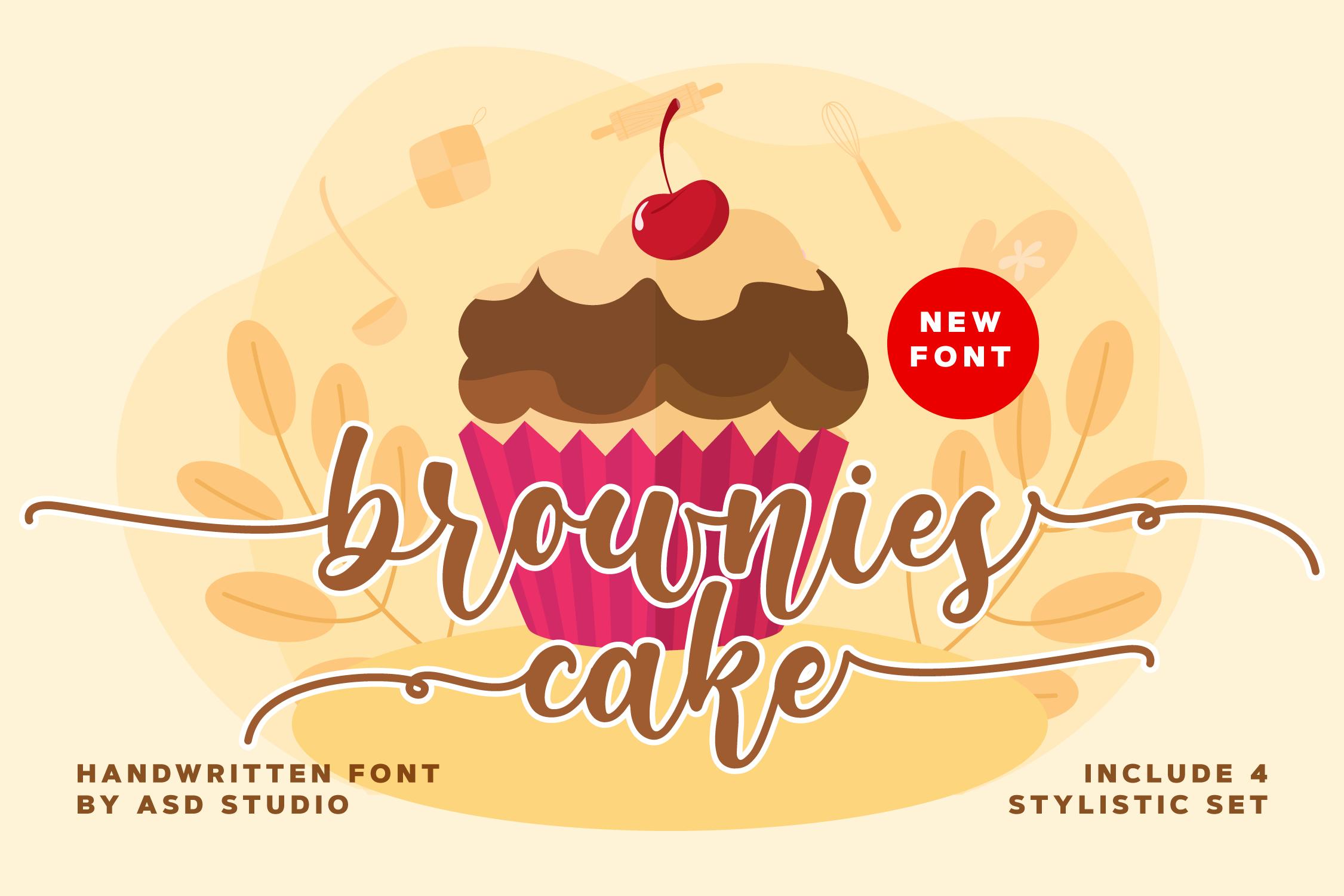
Brownies Cake Font Description
Brownies Cake is an incredibly distinct, delicate and timeless handwritten font. It looks stunning on wedding invitations, thank you cards, quotes, greeting cards, logos, business cards and every other design which needs a romantic touch.